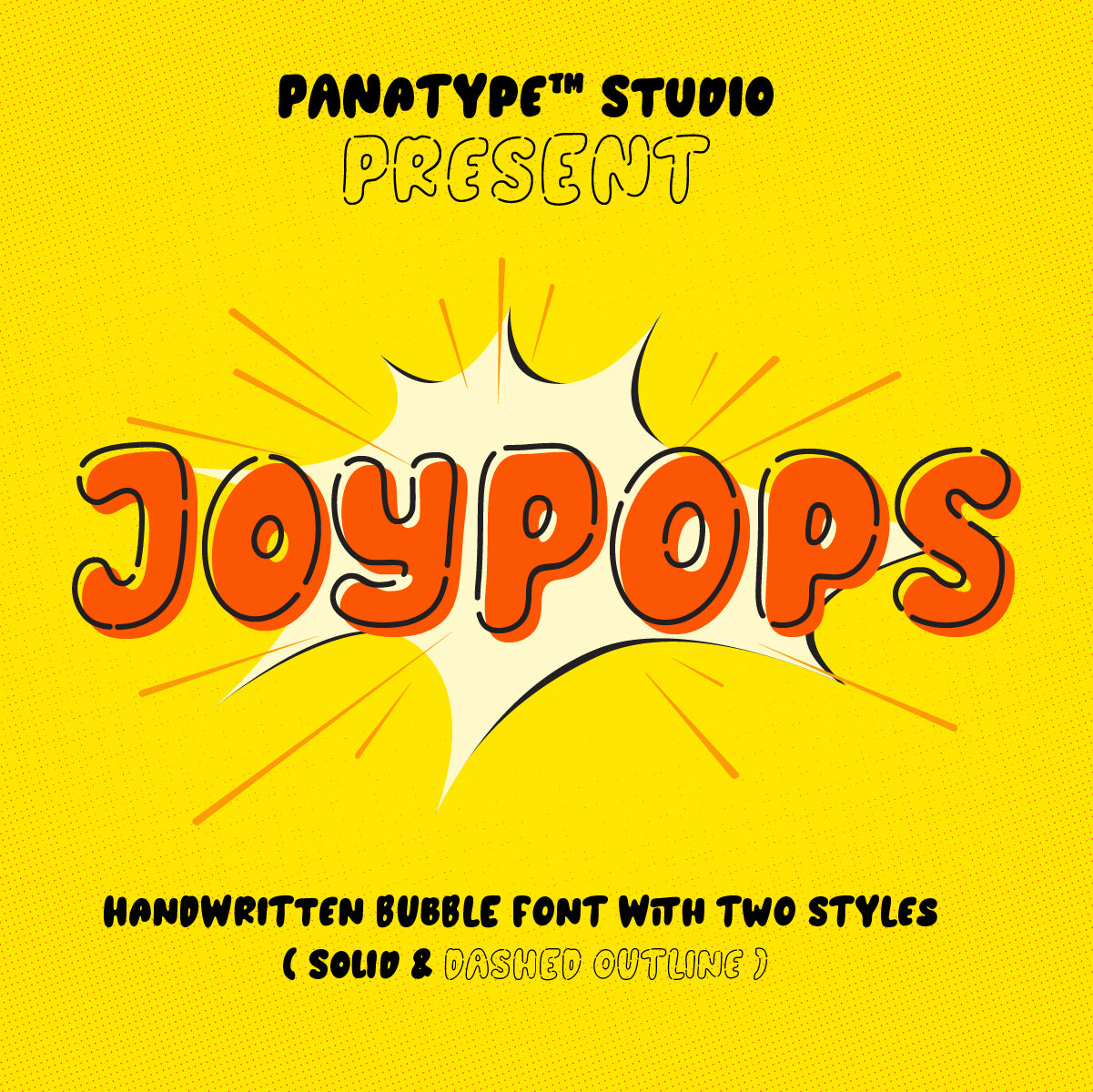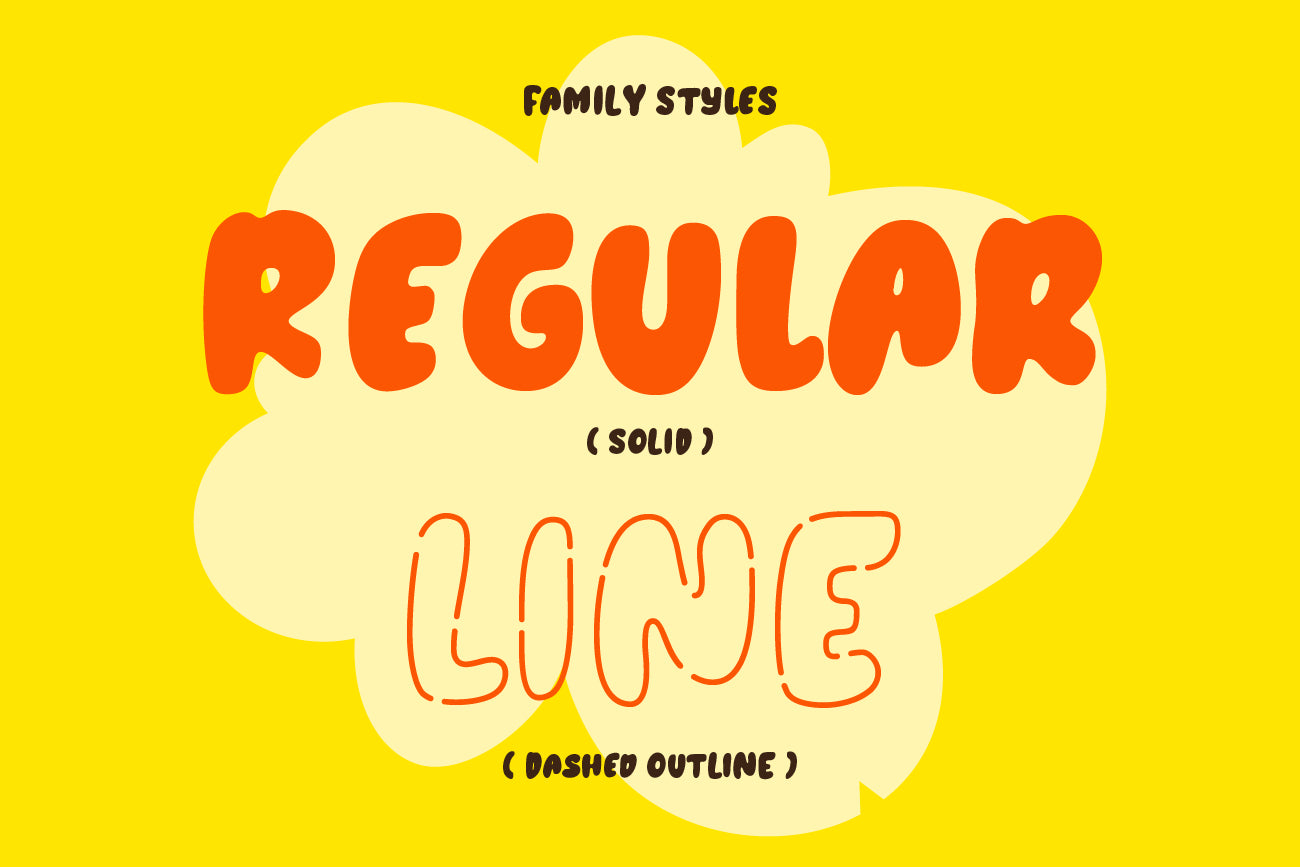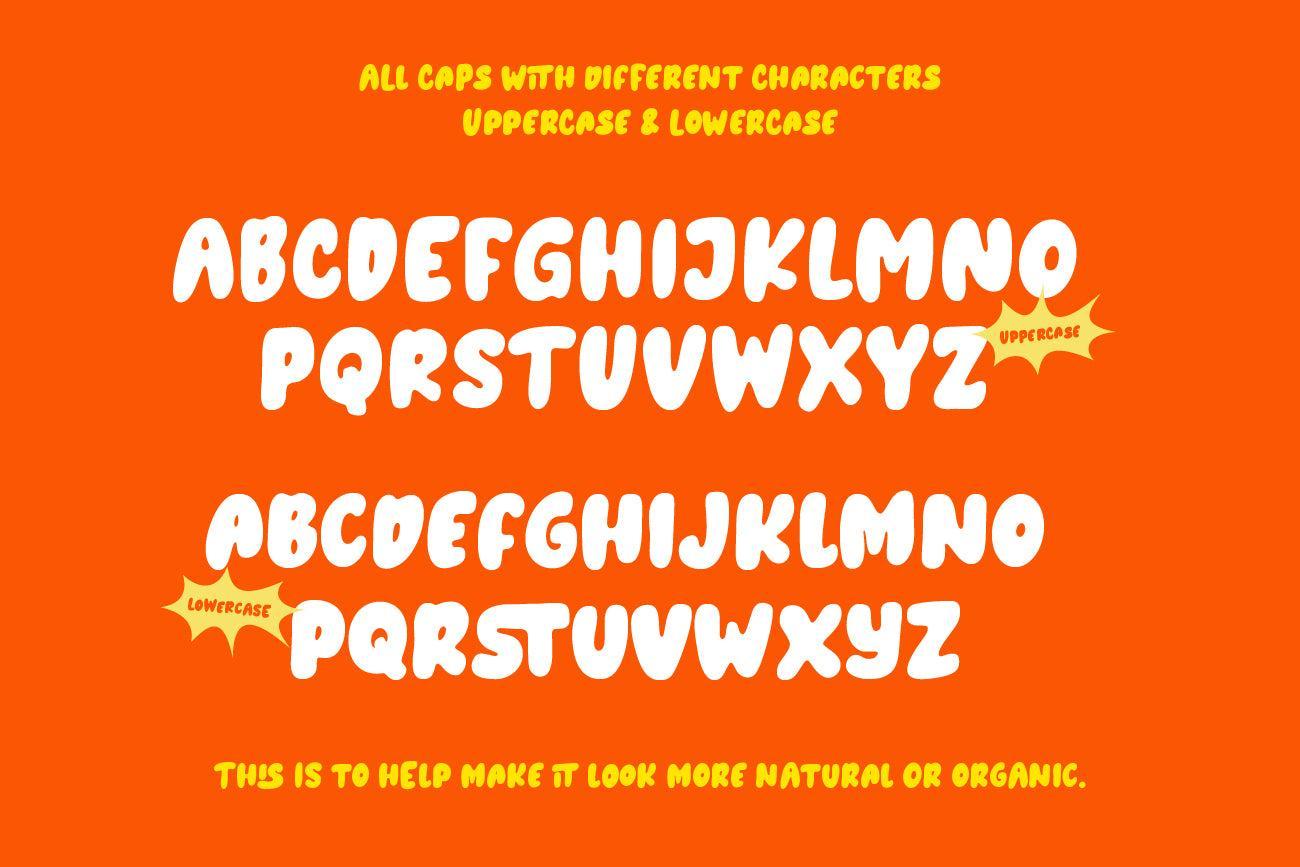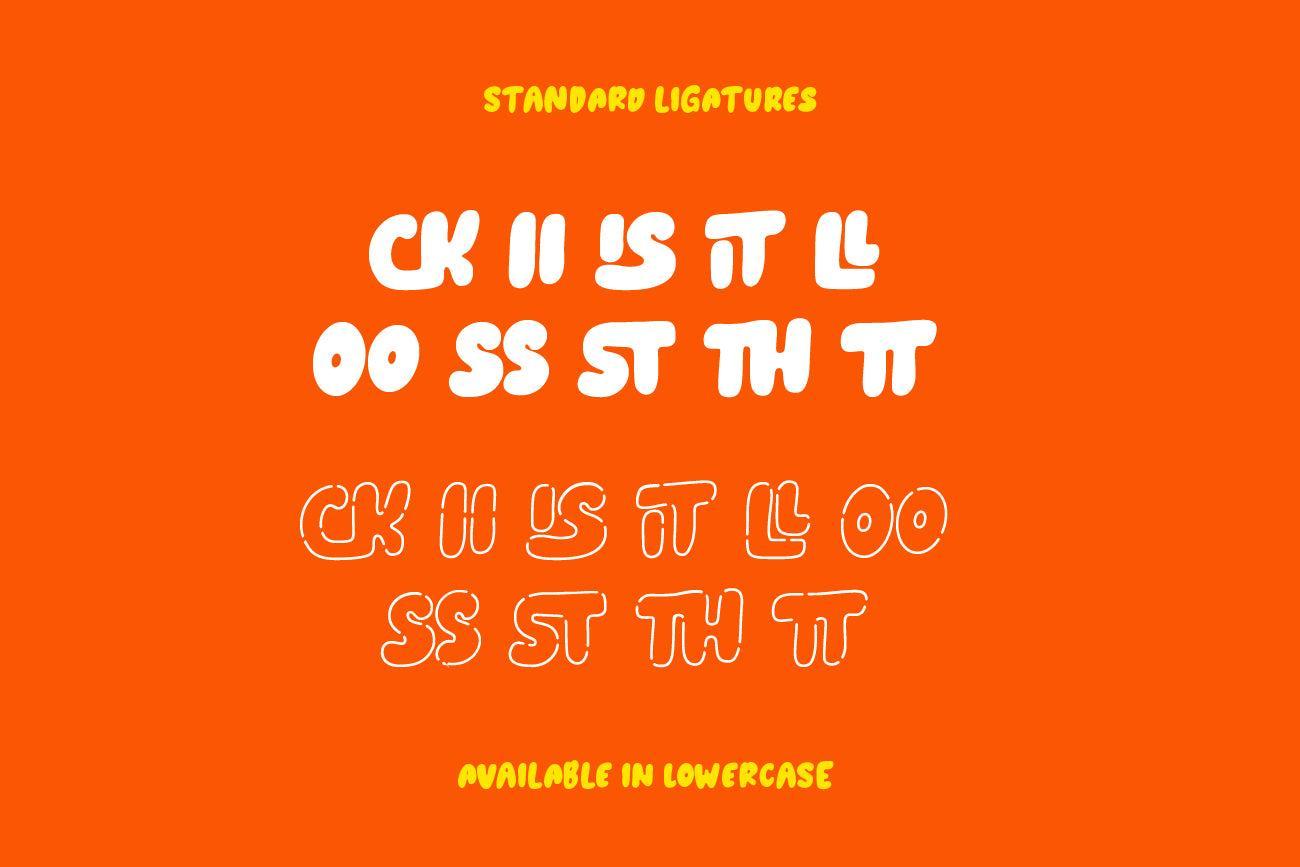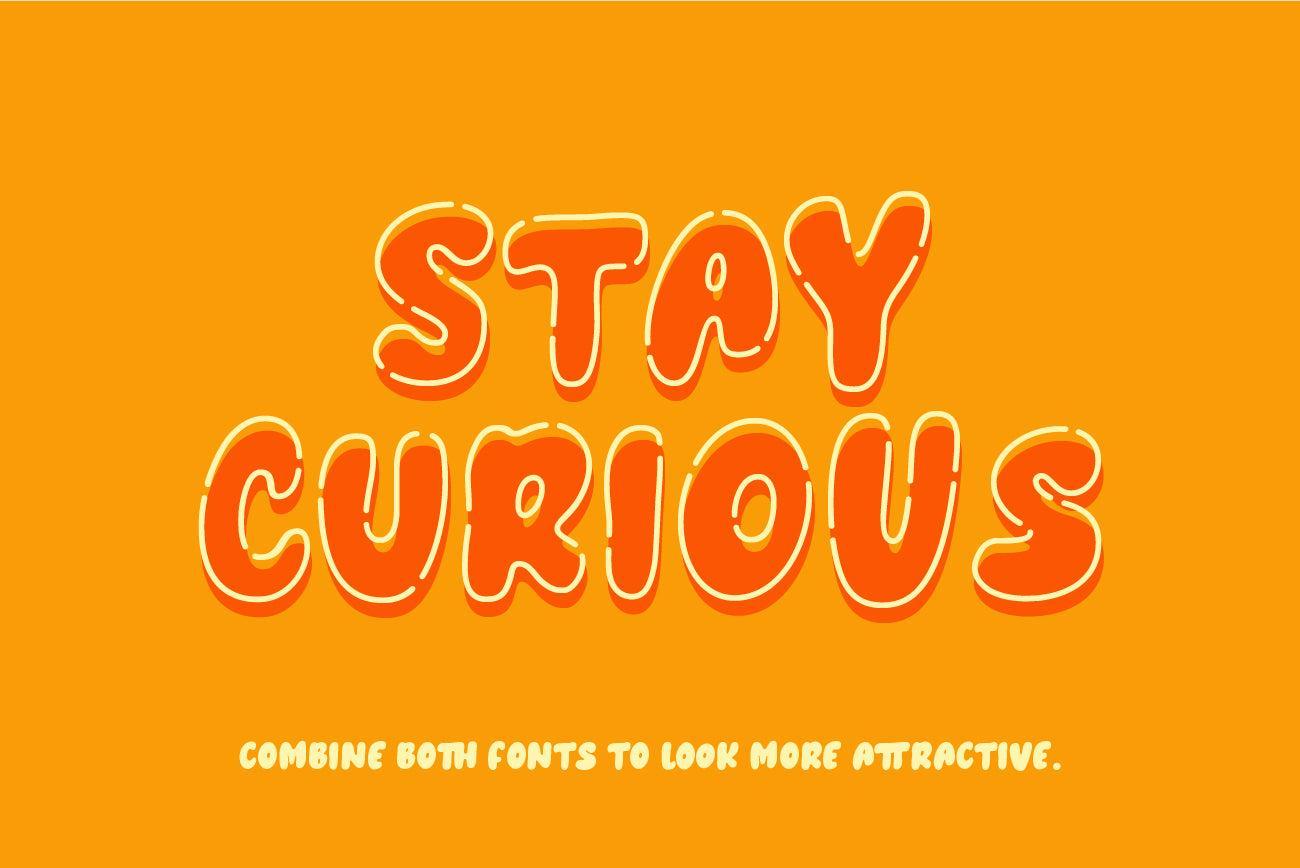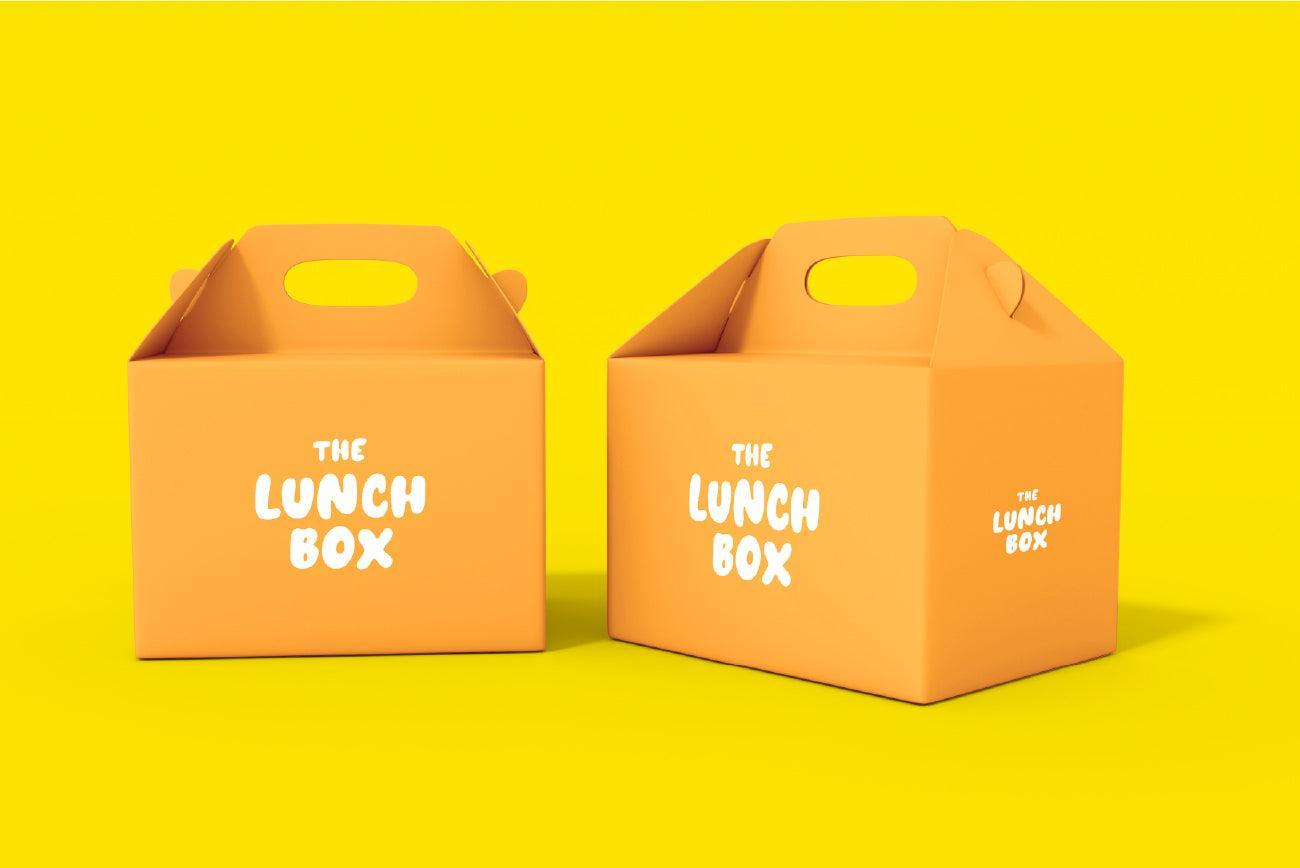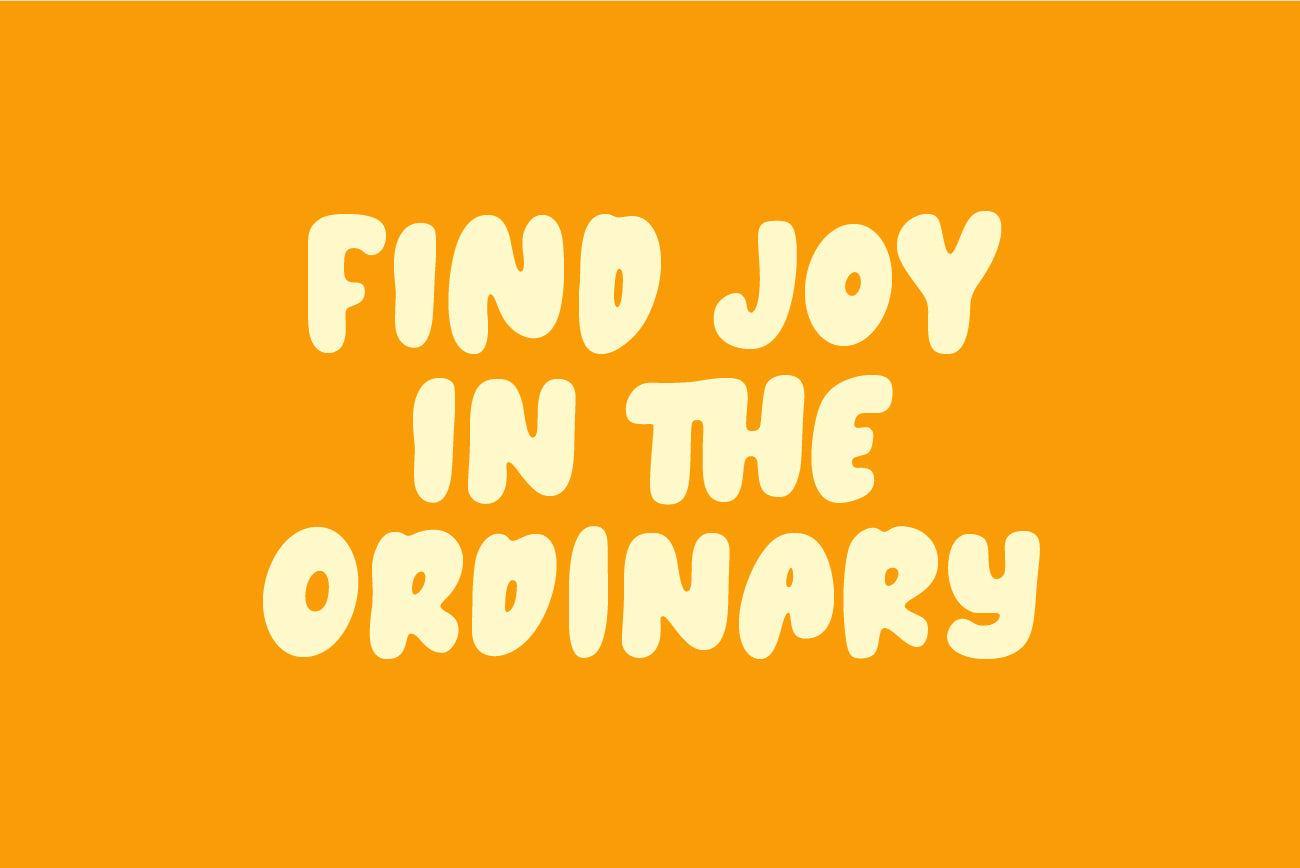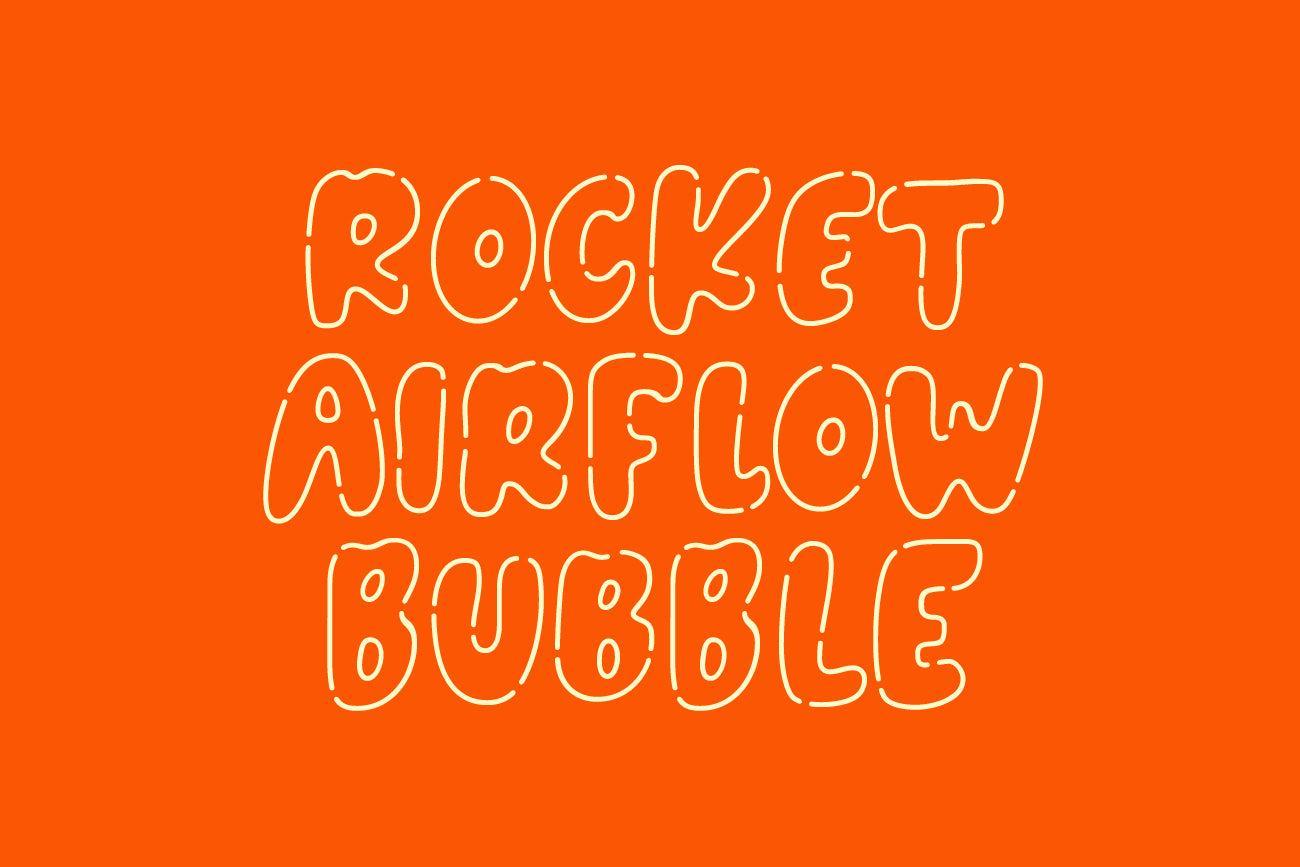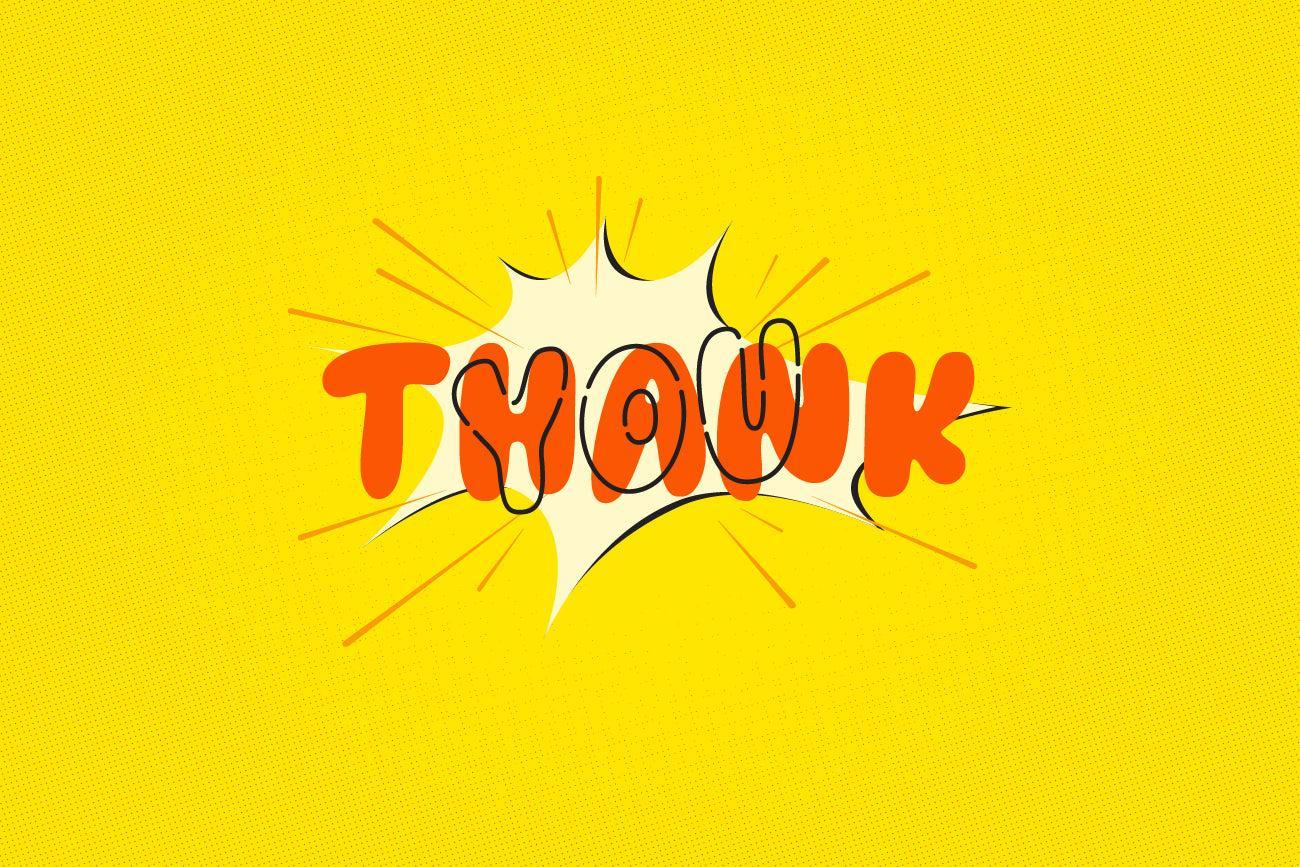
Joypops Handwritten Bubble Font
Joypops Handwritten Bubble Font is a versatile font featuring two styles—solid and dashed line—along with ligatures and alternates for added creativity. It supports over 100 languages and is suitable for various text applications.